Bold, sleek, playful, or elegant — your WordPress site’s personality shines through its fonts. But if you’re still using the default options, you might be selling your brand short. It’s like trying to stand out at a party while wearing the same outfit as everyone else. Sure, you’re dressed to the nines, but are you really making an impression?
When you’re trying to make your mark online, the fonts you pick are a big deal. They communicate your brand’s personality to visitors before they even read a single word. It’s no wonder the Font and Typeface Market is booming, with experts predicting it’ll hit a whopping $1293.04 million by 2030. People are catching on to the appeal of custom fonts, and here’s why:
- Unique fonts make your site look sharp and professional.
- They keep your brand looking consistent everywhere.
- The right fonts make your content easier to read.
- Different styles can set just the right mood for your site.
- Custom-looking fonts help you stand out from the crowd.
- Great typography keeps visitors glued to your content.
Before we dive deeper, let’s quickly cover the main font types you’ll encounter:
- Serif fonts: These have small lines or strokes at the ends of characters (like Georgia). They often convey tradition and reliability.
- Sans-serif fonts: These lack the small lines of serif fonts (like Helvetica Neue). They’re seen as modern and clean.
- Display fonts: These are decorative and best used for headlines or logos. They tend to be attention-grabbing but are less suitable for body text.
- Script fonts: These mimic handwriting or calligraphy. They can add elegance but should be used sparingly for readability.
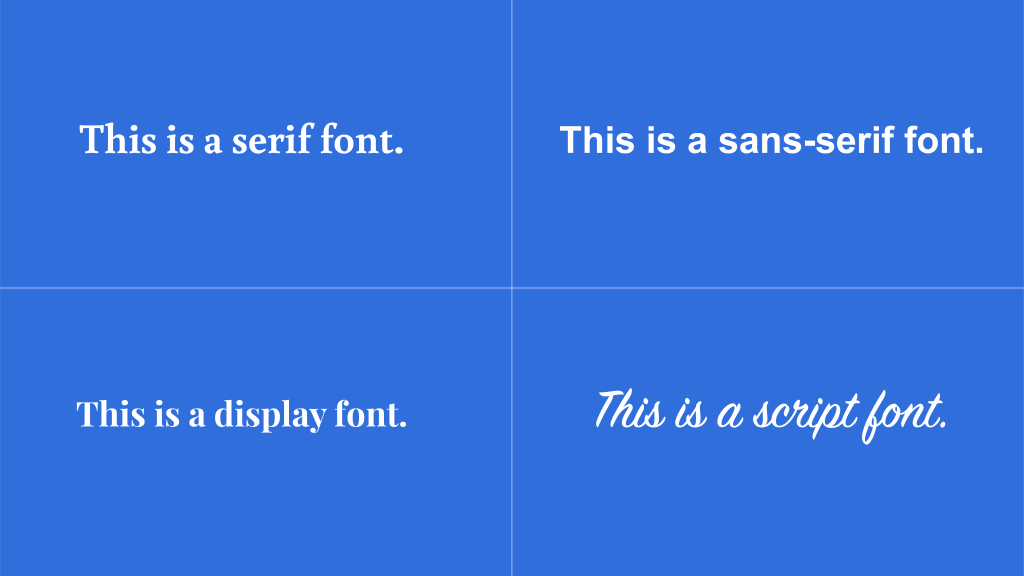
You’ve probably also heard of web-safe fonts — those tried-and-true options like Arial, Times New Roman, and Verdana that properly display on virtually any device. They’re reliable, but they’re also… well, everywhere.
That’s why many brands are turning to custom fonts to make their websites stand out. But where can you find these typographic treasures? Here are some popular sources:
- Google Fonts: This is a massive collection of free, open-source fonts that work well with WordPress. With over 1,700 font families and more than 400 variable font families to choose from, Google Fonts offers an incredible variety of styles.
- Adobe Fonts (formerly Typekit): If you’re looking for premium quality, Adobe is a very popular option. These fonts integrate smoothly with Adobe Creative Cloud which is a paid service, but the selection is truly top-notch. However, it’s worth noting that some users report negative impacts on site speed when using Adobe Fonts, so consider testing thoroughly before fully implementing. (More on site speed later.)
- Font Squirrel: Font Squirrel offers a wide selection of fonts you can use commercially without spending a dime. One of the major advantages of using Font Squirrel is its commitment to transparency in licensing (which we’ll explore in more detail in the next section). Every font on the platform is labeled as “100% free for commercial use,” which eases concerns about legal issues related to font usage in projects. (Double-check the terms of the license agreement though, just to cover your bases.)
- Fonts.com (now part of MyFonts.com and Monotype Fonts): If you’ve been around the web design block, you’re probably familiar with Fonts.com. However, as of March 2024, Fonts.com joined forces with MyFonts.com and Monotype Fonts. Luckily, all the fonts you knew and loved are still available, just under a new roof. In fact, this merger has expanded your typographic options. You can now access an even broader range of fonts (almost 50,000, to be precise), from free options to premium designs that will make your site stand out.
- CreativeMarket.com: Looking for a unique font? CreativeMarket.com offers an impressive selection of over 315,000 high-quality fonts from independent designers and foundries. You’ll find diverse styles for every project, all with commercial licensing.
- Fontesk: If you’re watching your budget, check out Fontesk. It specializes in free fonts, but don’t think that means boring. Fontesk curates collections of distinctive typefaces, often showcasing hidden gems you won’t see elsewhere. Plus, they put a big emphasis on accessibility, which is always a win in our book.
- Independent designers: Have you considered the creators behind the fonts you use? Supporting indie designers like James Coffman, Floraine Rousselot, Lucas Descroix, Minjoo Ham, and more is a great way to get unique typefaces while nurturing the creative community.
- Custom-made fonts: For the ultimate in brand uniqueness, you could also have a font created just for you. It’s an investment, but it ensures your brand stands out in the best way possible.
Choosing the perfect font pairing for your brand
- Pick fonts that match your brand’s personality.
- Stick to two to three fonts to keep things consistent and fast.
- Make sure everything’s easy to read, especially on phones.